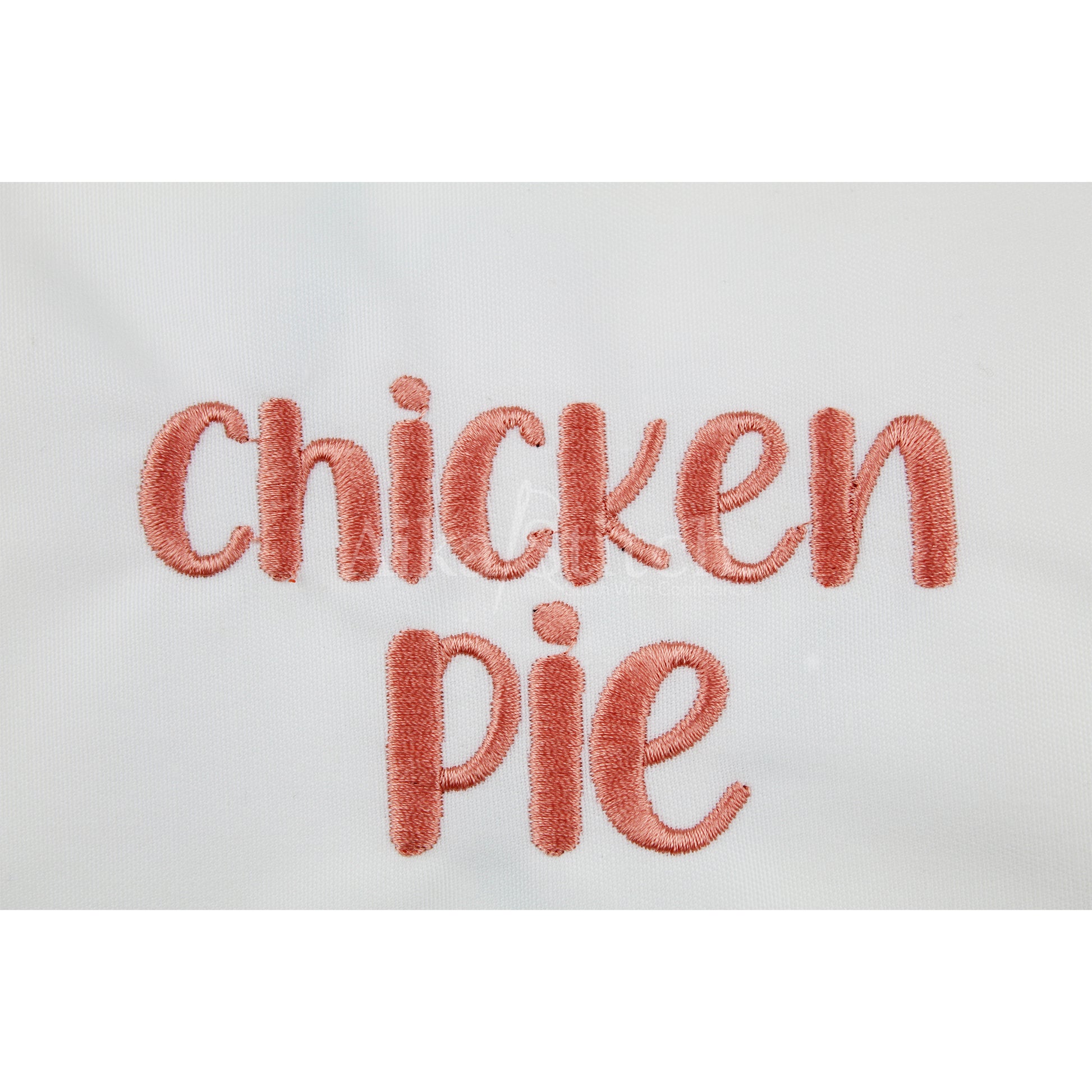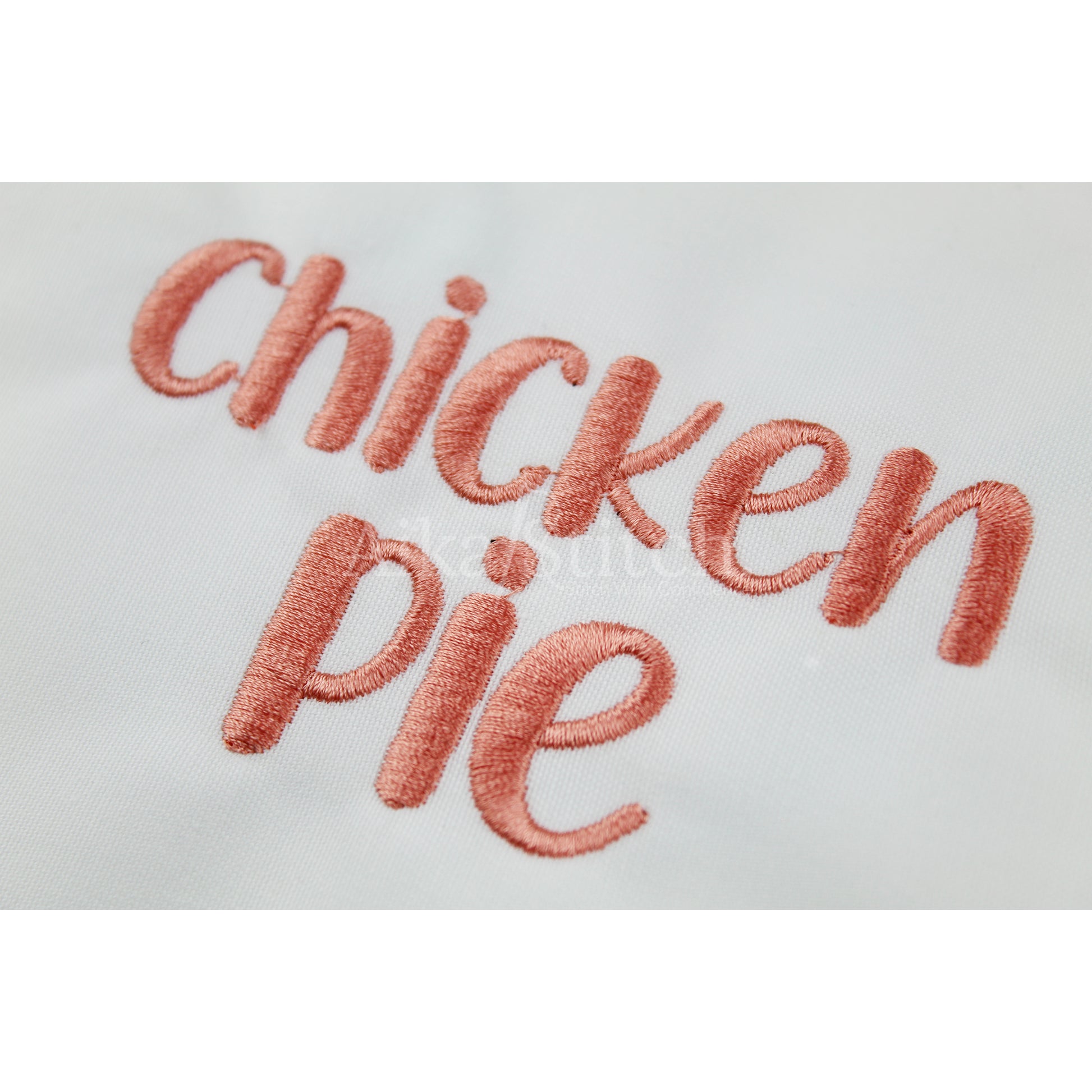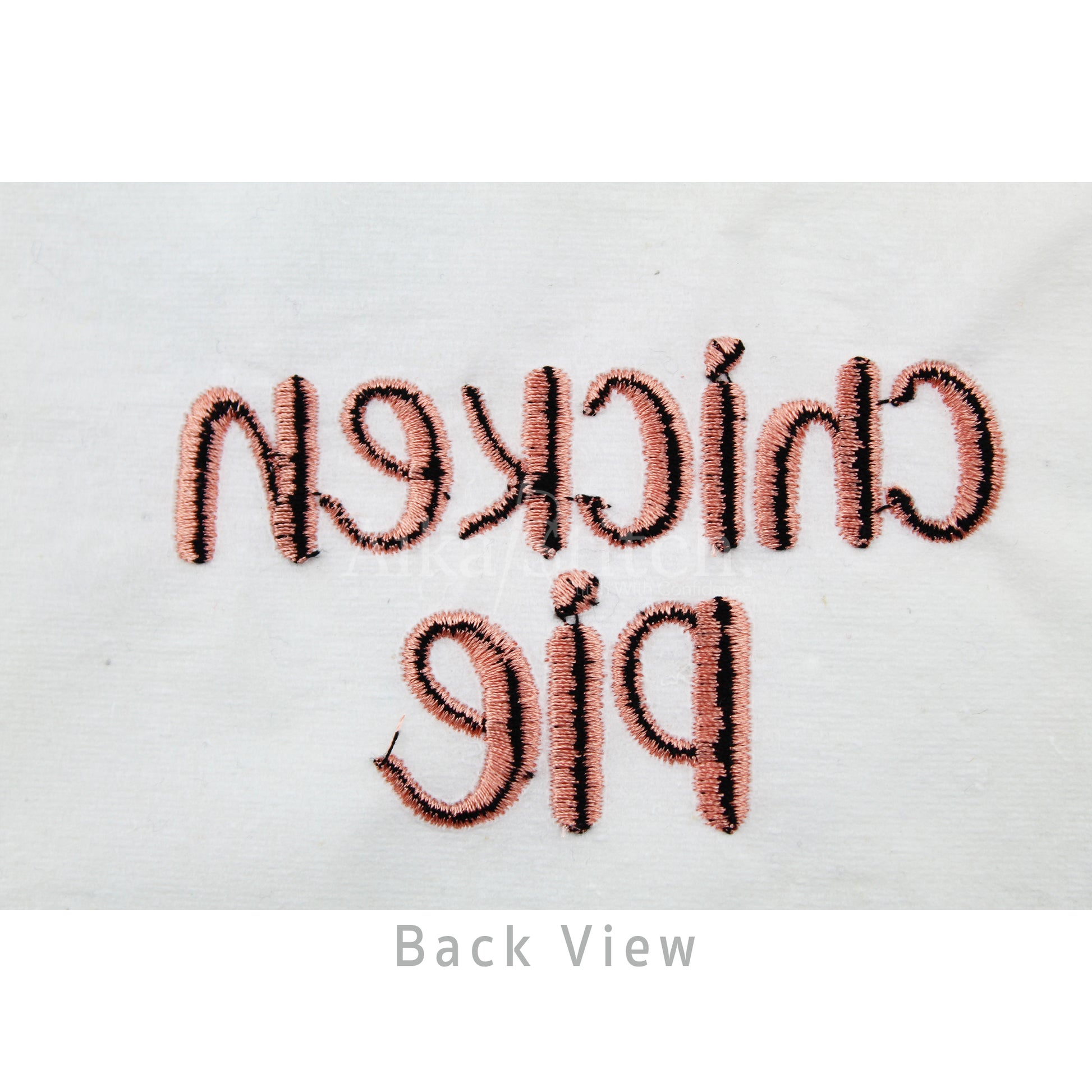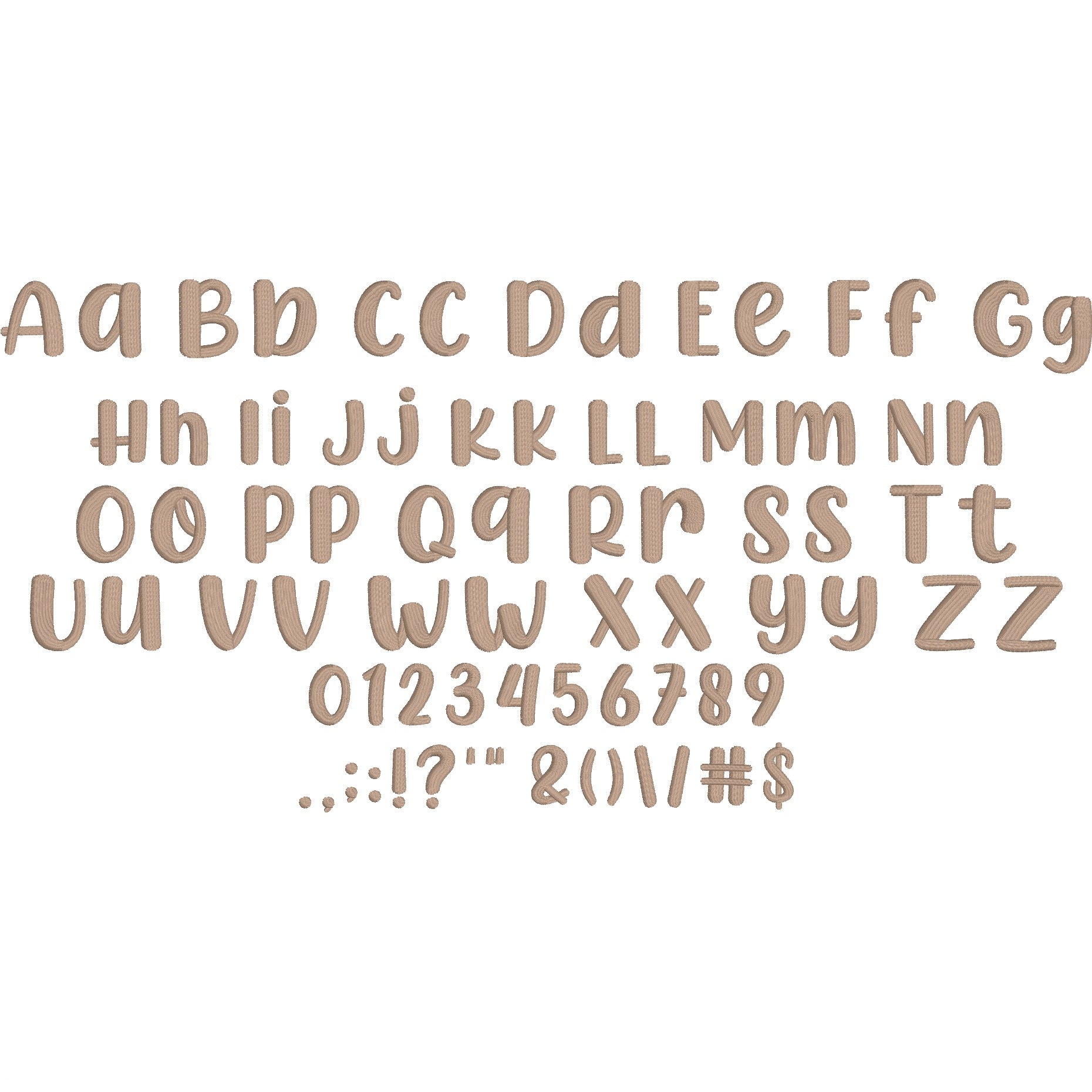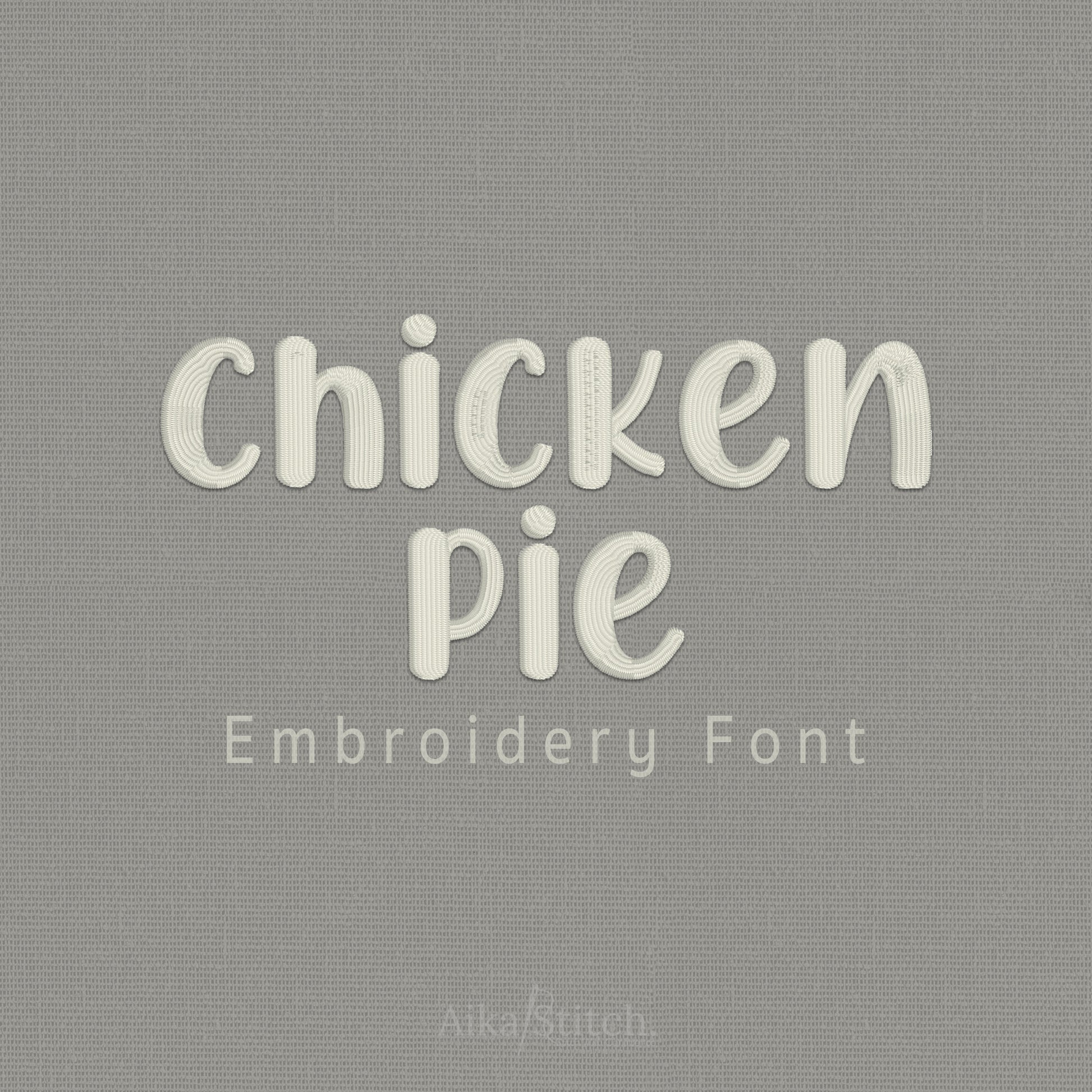
Chicken Pie Handwritten Calligraphy Embroidery Font
Chicken Pie is a Handwritten Calligraphy machine embroidery font featuring beautiful satin stitch lettering. Perfect for shirts, towels, hats, baby gifts, monograms, and small business embroidery projects.